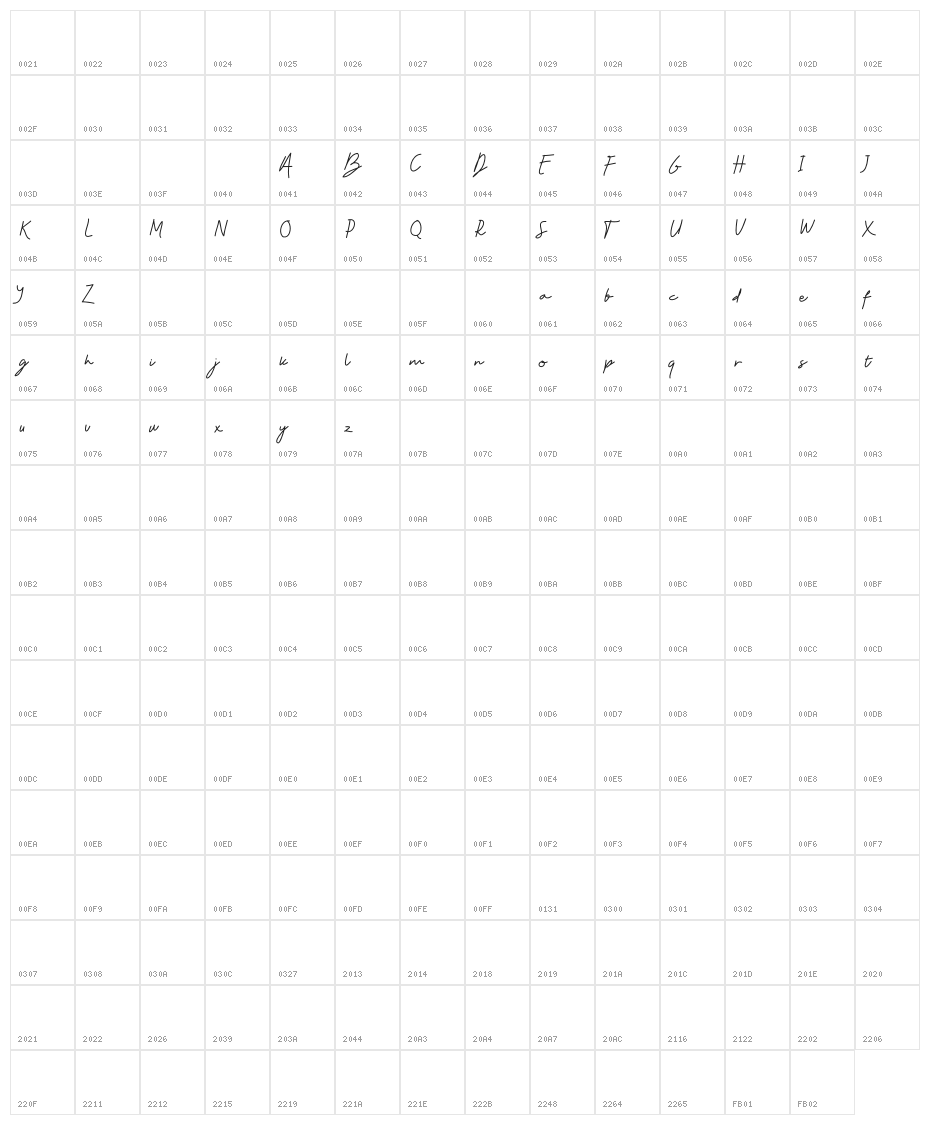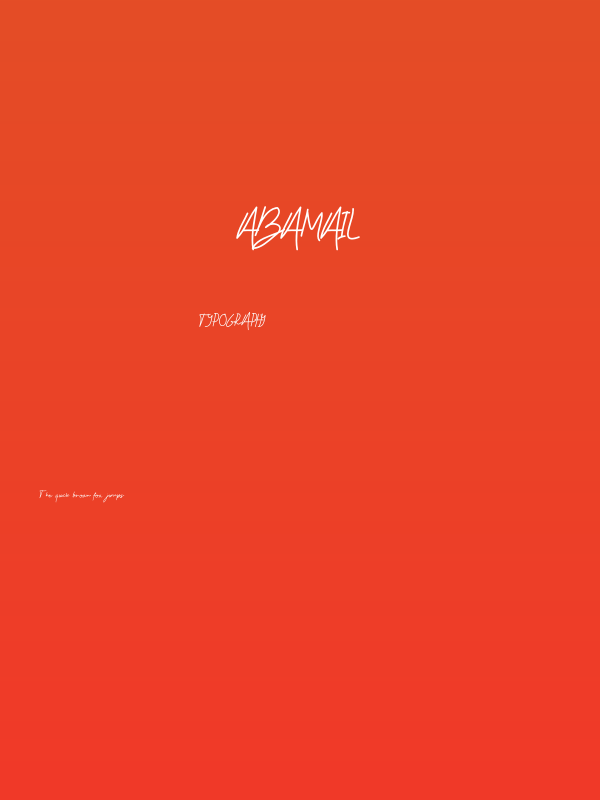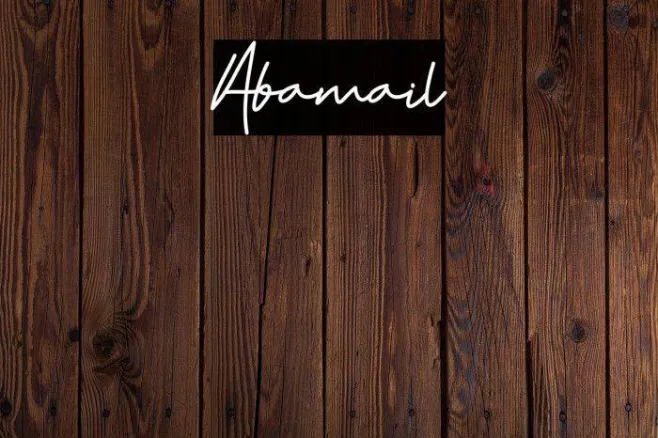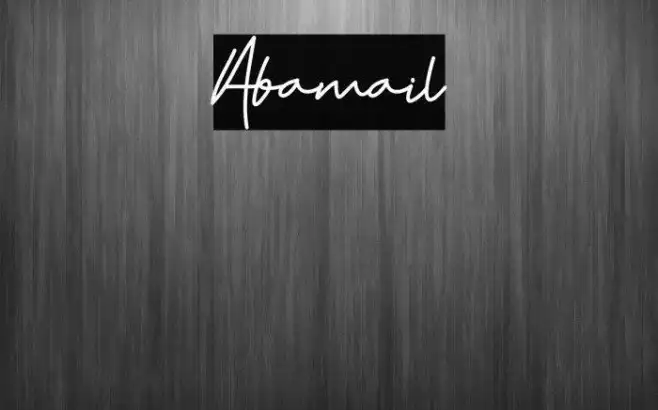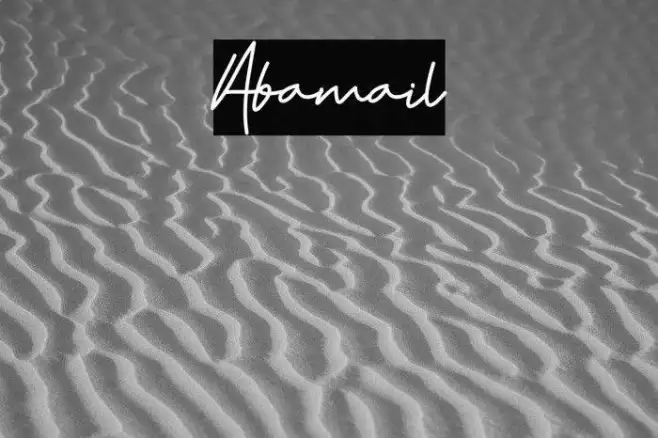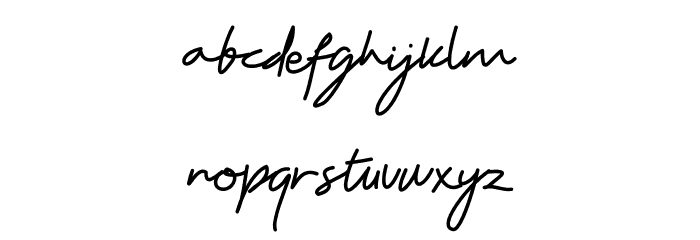
Abamail Font
Abamail Description
This font exudes a casual, handwritten style with a playful and energetic flair. The letters are slightly slanted, giving a sense of movement and fluidity. The strokes are varied in thickness, adding a dynamic and lively feel. The uppercase letters are bold and confident, while the lowercase letters maintain a consistent flow, enhancing readability. The font's overall appearance is informal yet stylish, making it suitable for creative and expressive projects.
| Proposed Projects | Ideal for greeting cards, personal branding, social media graphics, and creative invitations. |